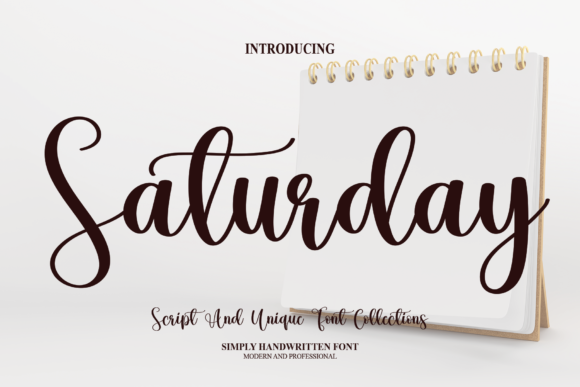
About Saturday Font
Saturday is a stylish and sweet calligraphy typeface with characters that dance along the baseline. It will add a luxury spark to any design project that you wish to create!